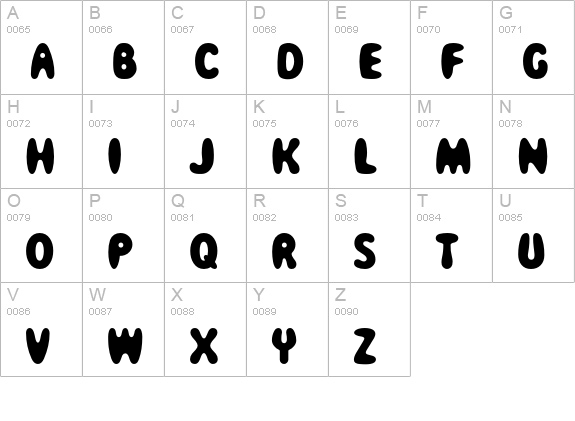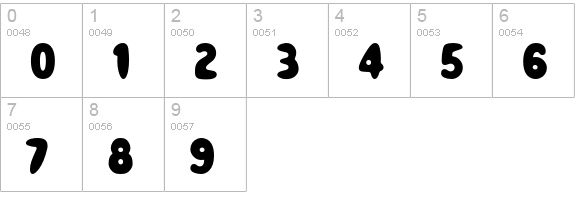
Magical Mystery Tour Font Details
The Magical Mystery Tour font is a captivating and whimsical typeface that will transport you into a world of magic and wonder. Inspired by the psychedelic era of the 1960s, this font brings a sense of nostalgia and creativity to any design project. With its unique and playful letterforms, the Magical Mystery Tour font adds a touch of enchantment to your designs. Whether you're creating posters, album covers, or invitations, this font will instantly captivate the attention of your audience. But what sets the Magical Mystery Tour font apart is its availability. Unlike many other fonts, this one is freely available to download at FontsMarket.com. This means that you can add a touch of magic to your designs without breaking the bank. So why wait? Download the Magical Mystery Tour font today and let your imagination run wild. Whether you're designing for print or digital, this font is sure to bring a sense of wonder and excitement to your projects. Don't miss out on this opportunity to add a touch of magic to your designs - get the Magical Mystery Tour font now, and let your creativity take flight!